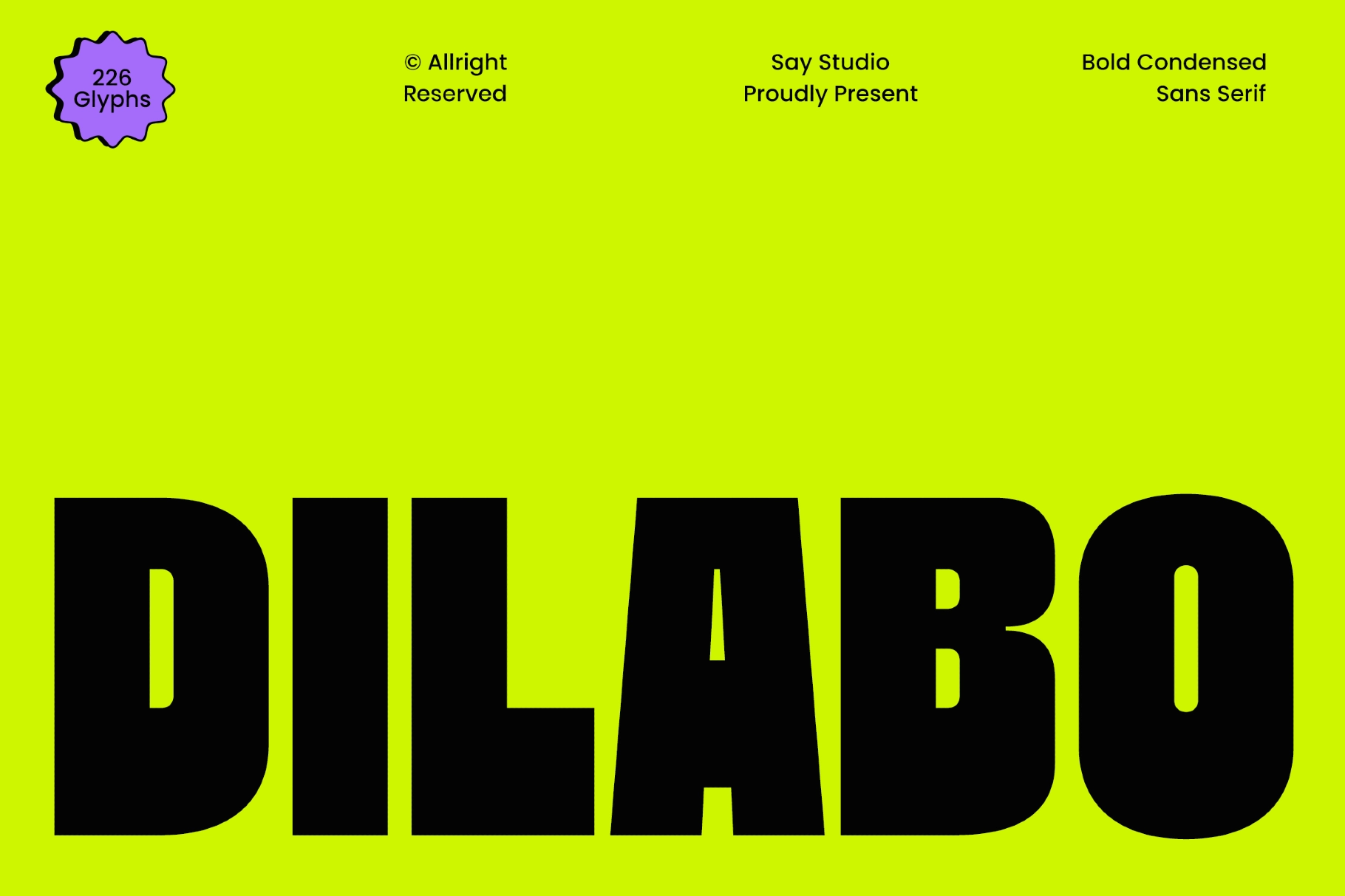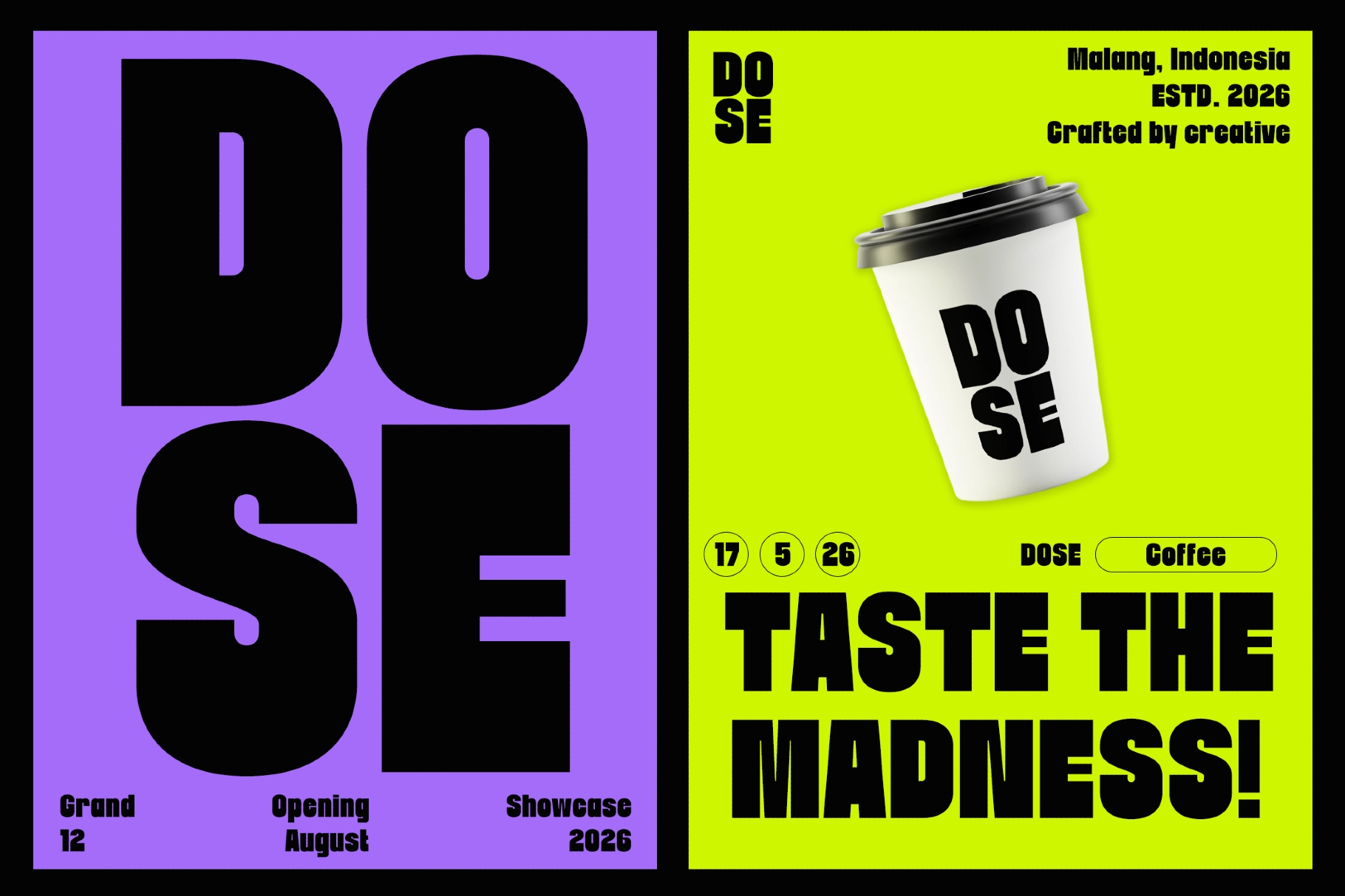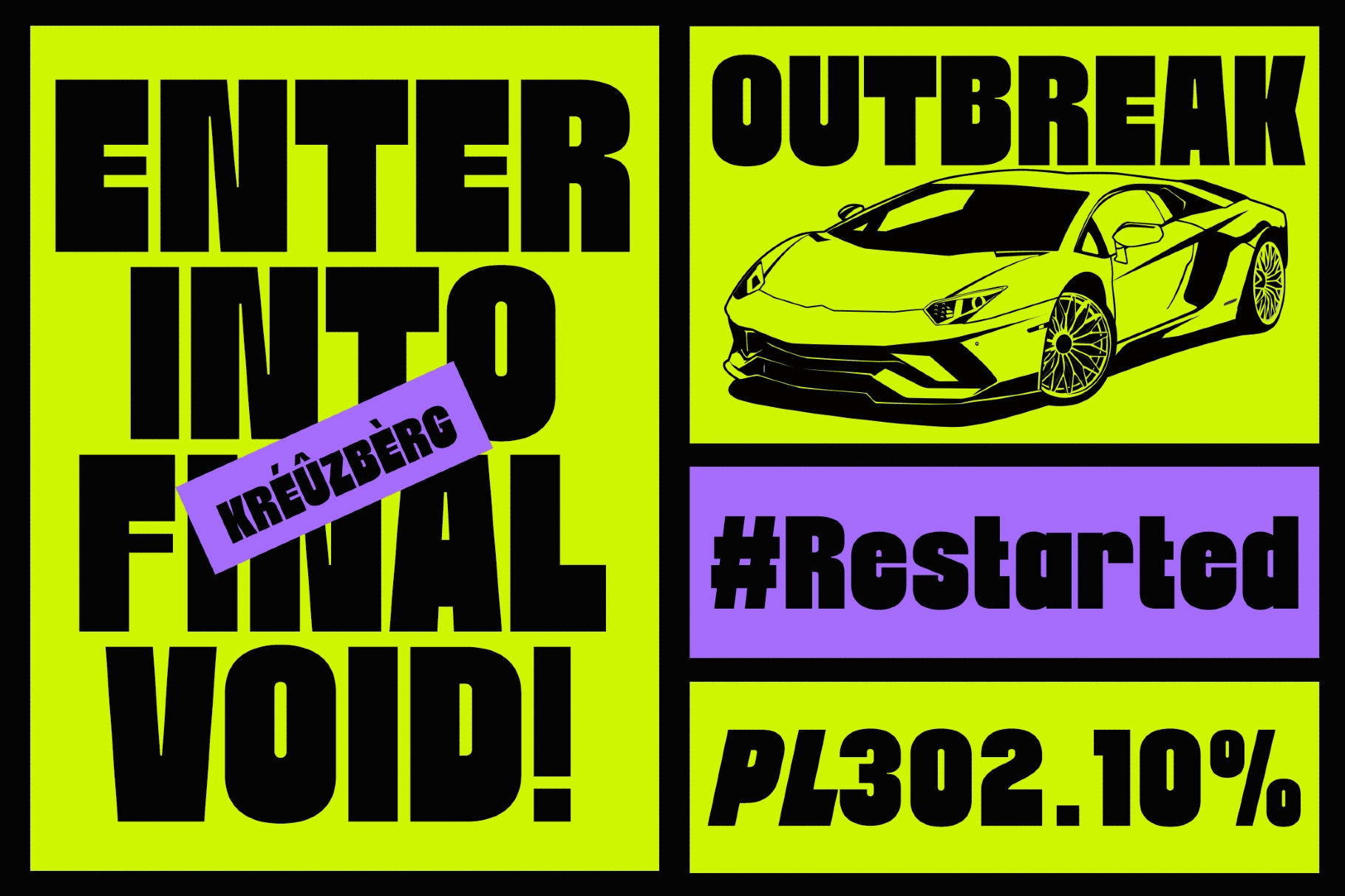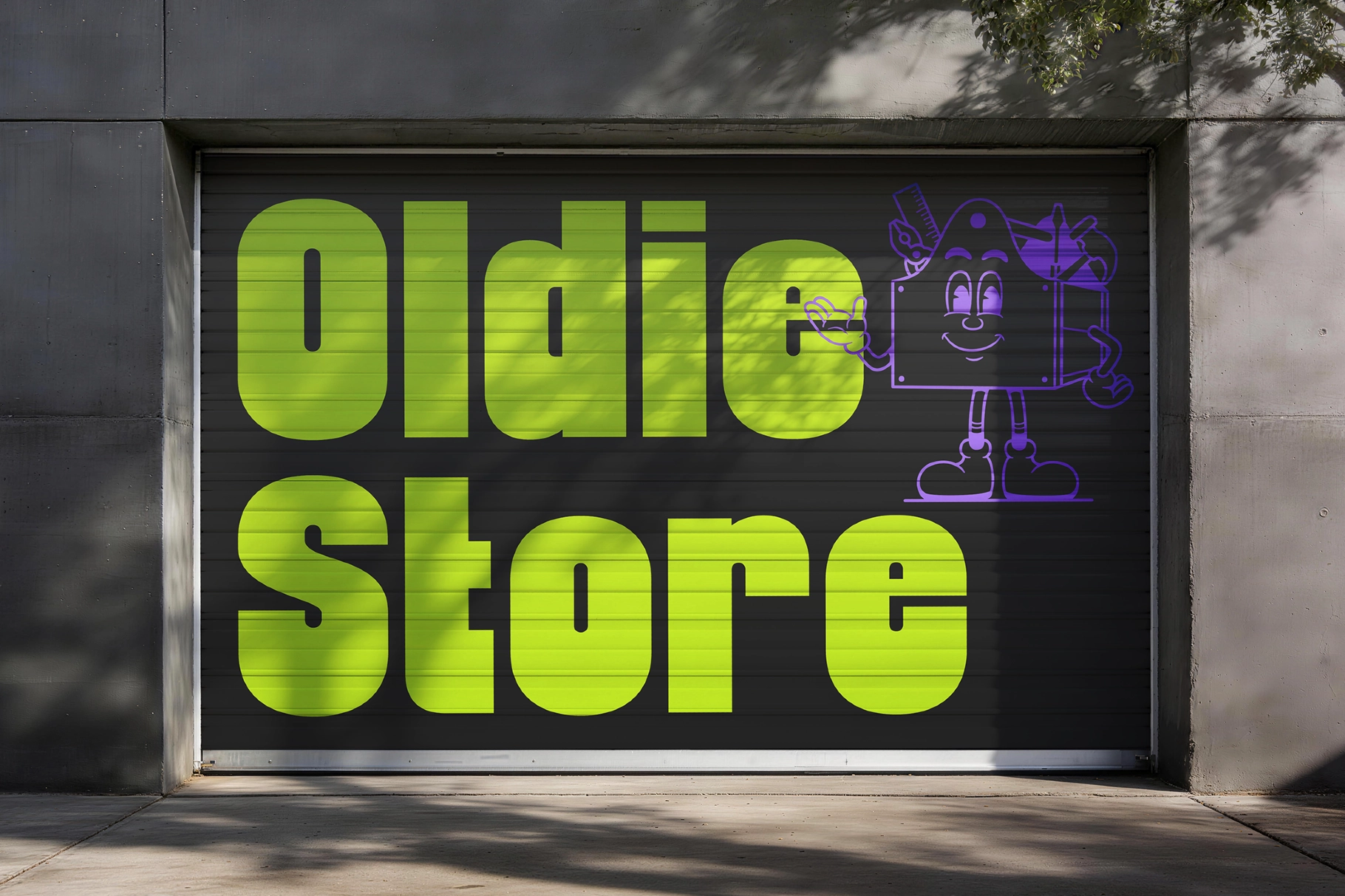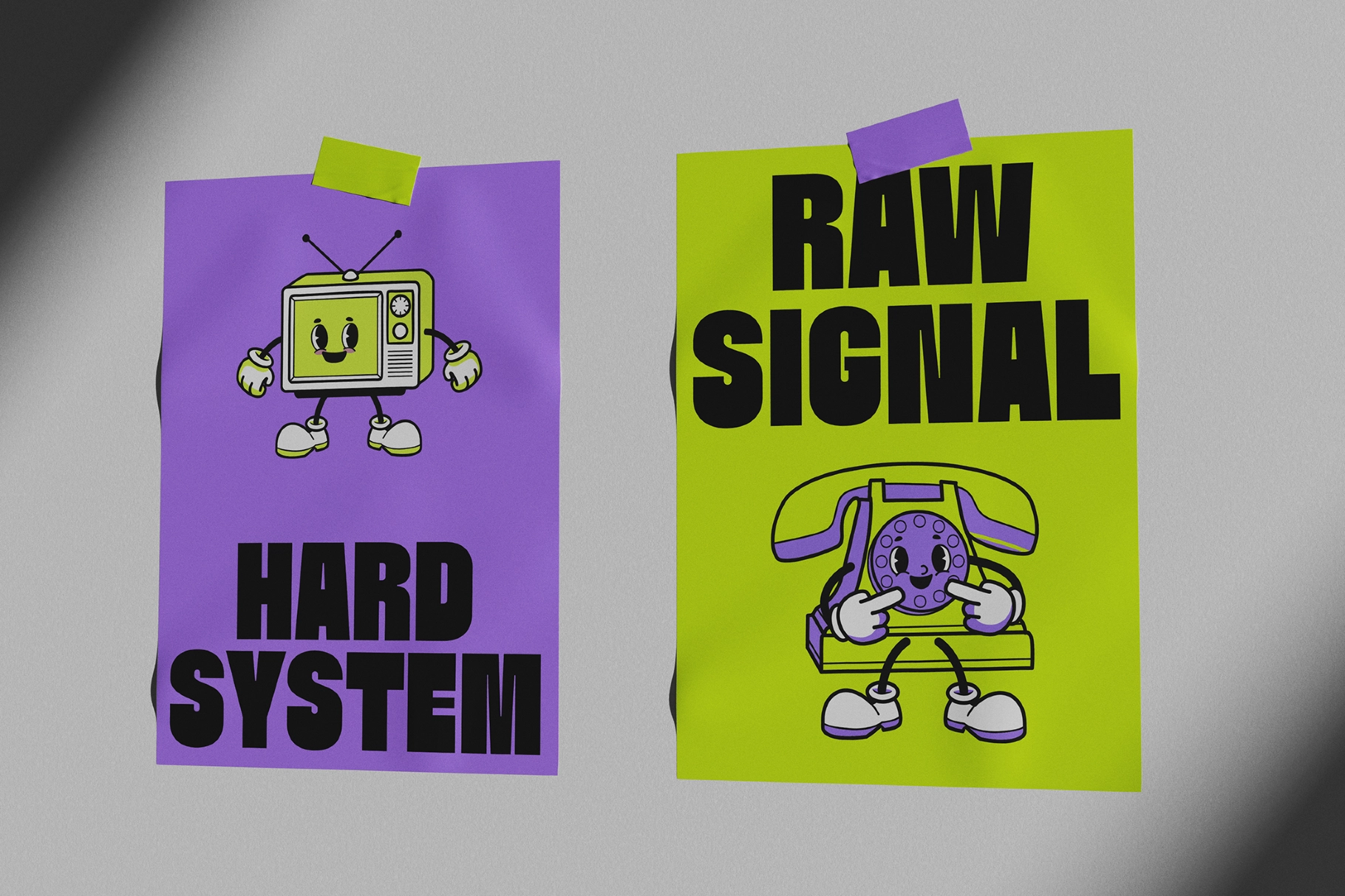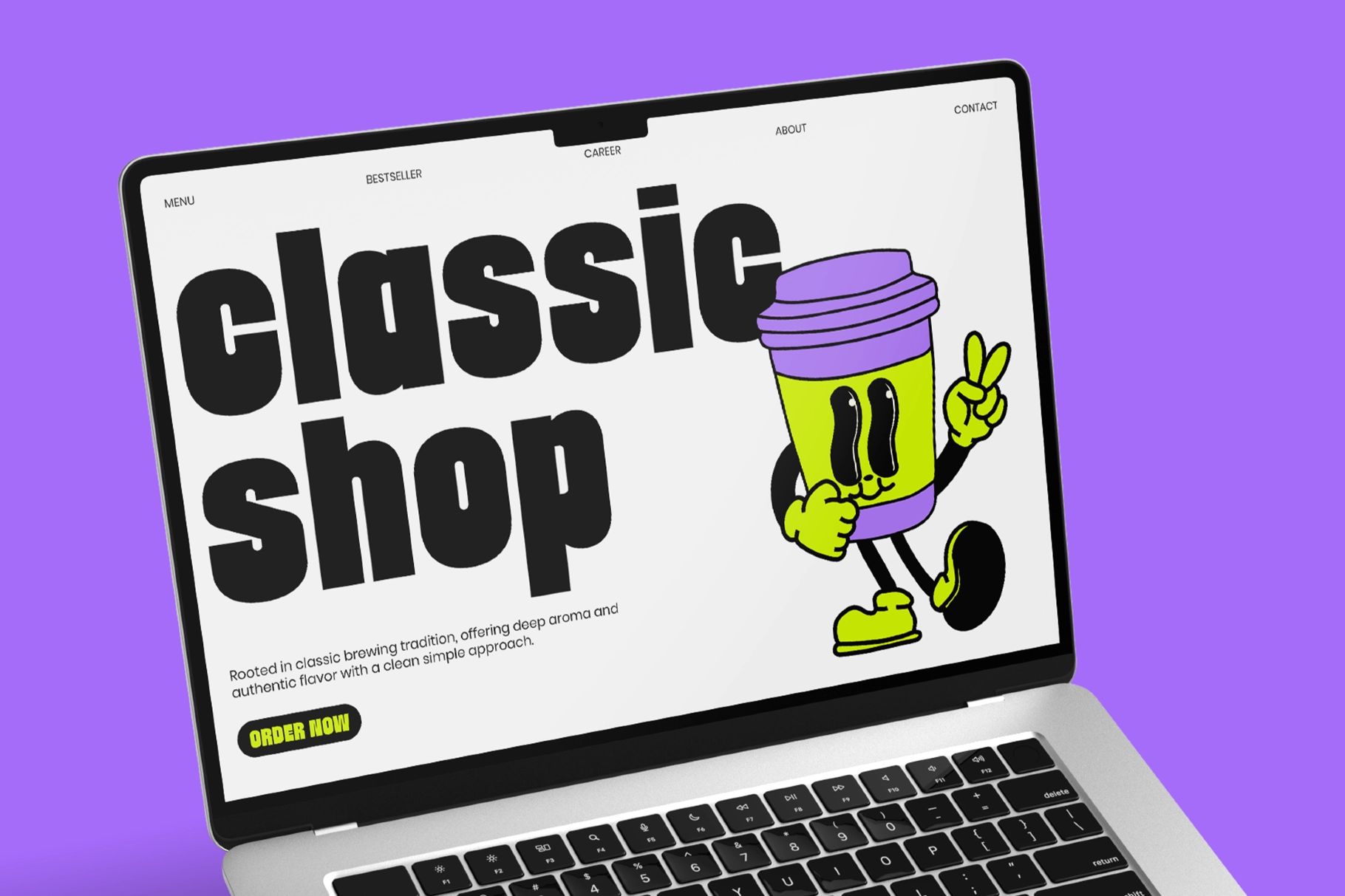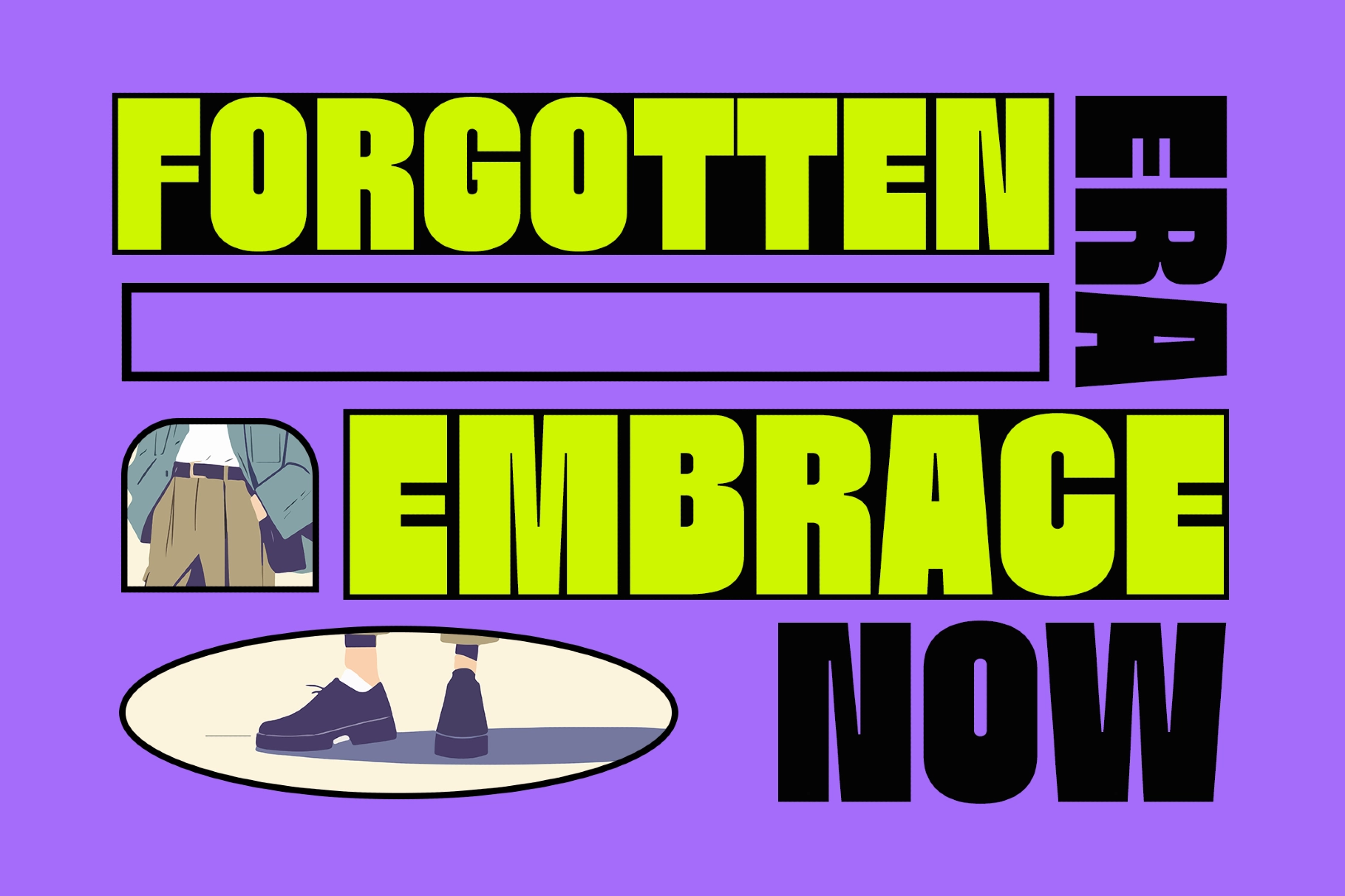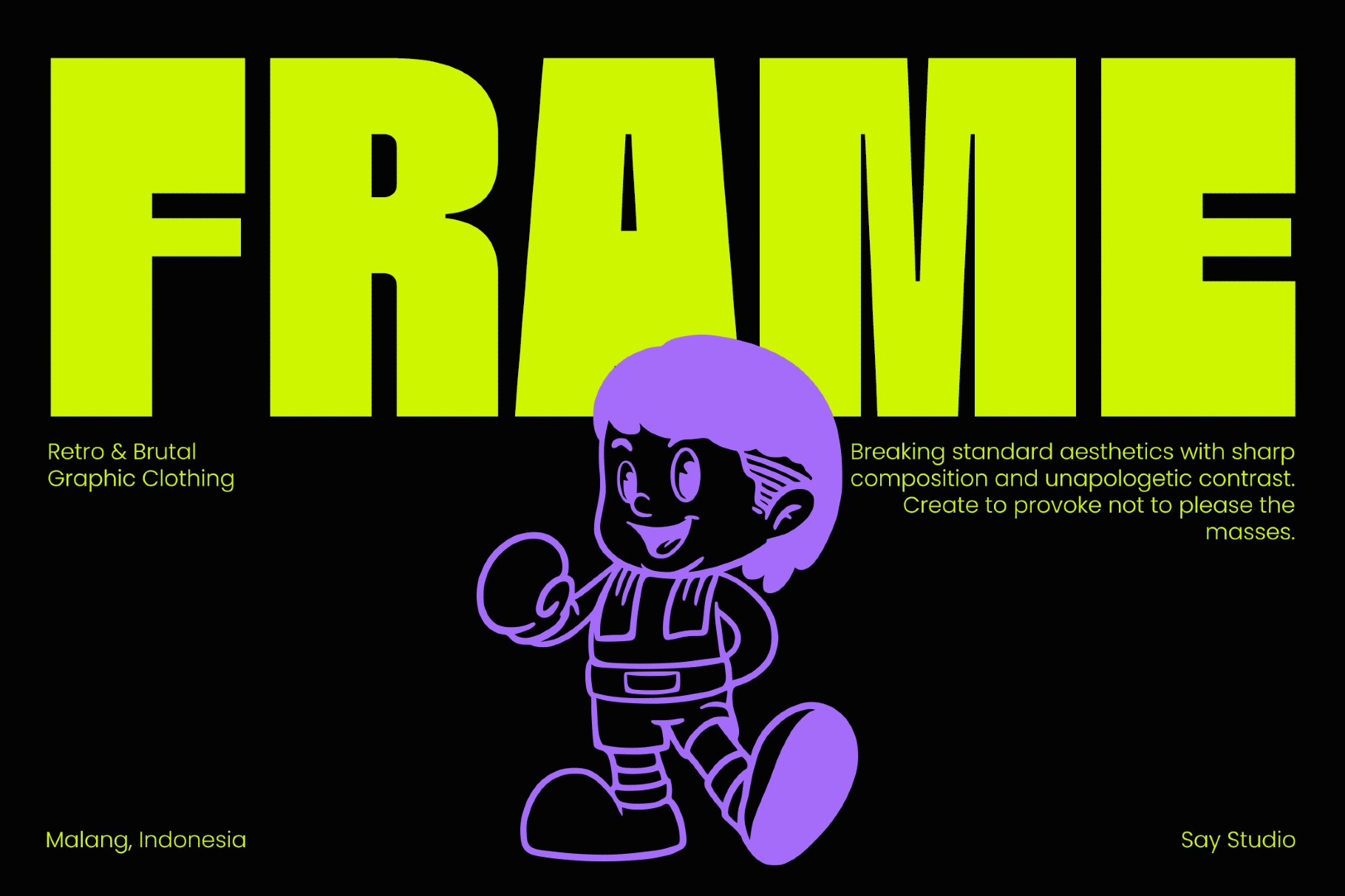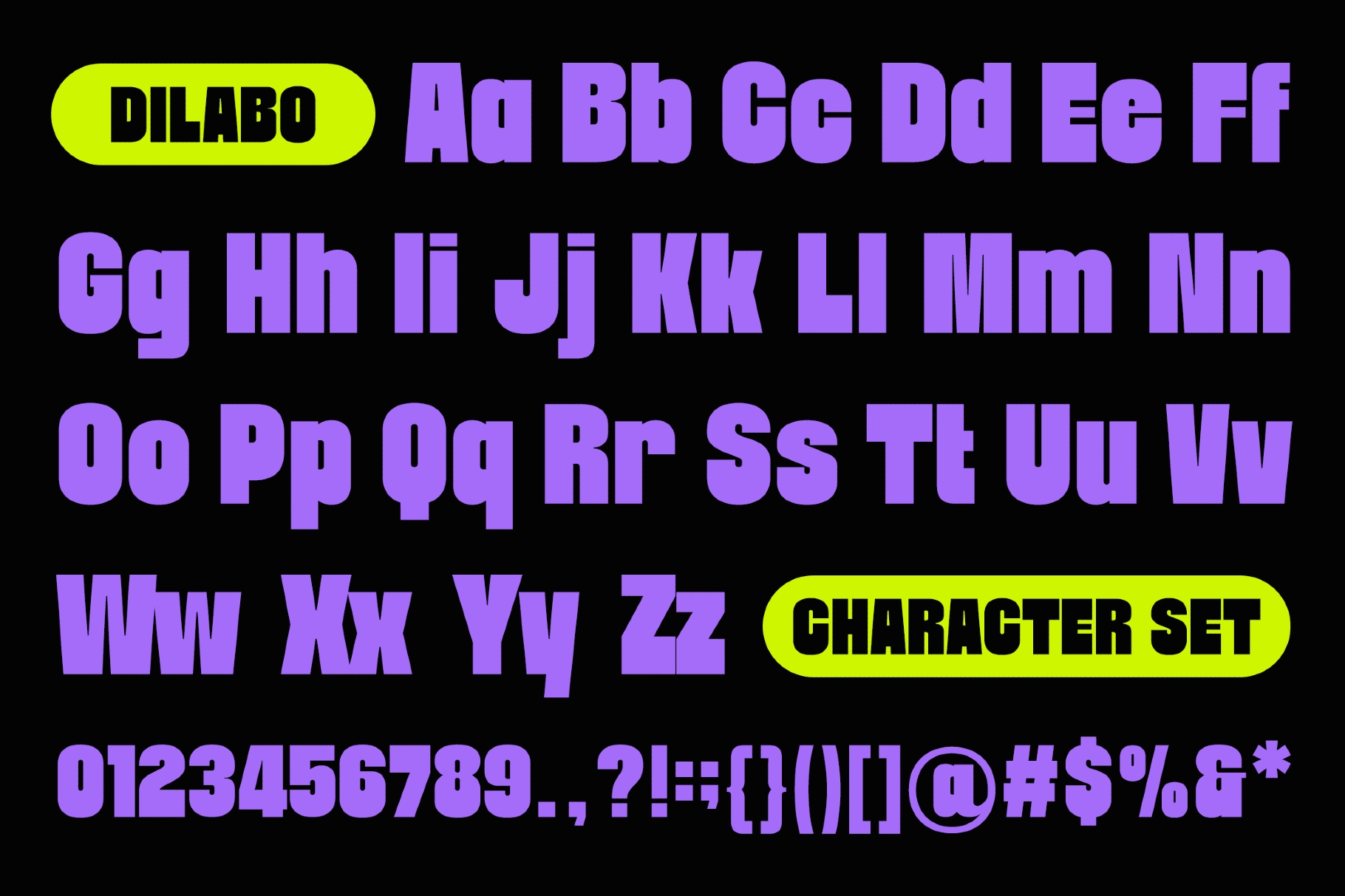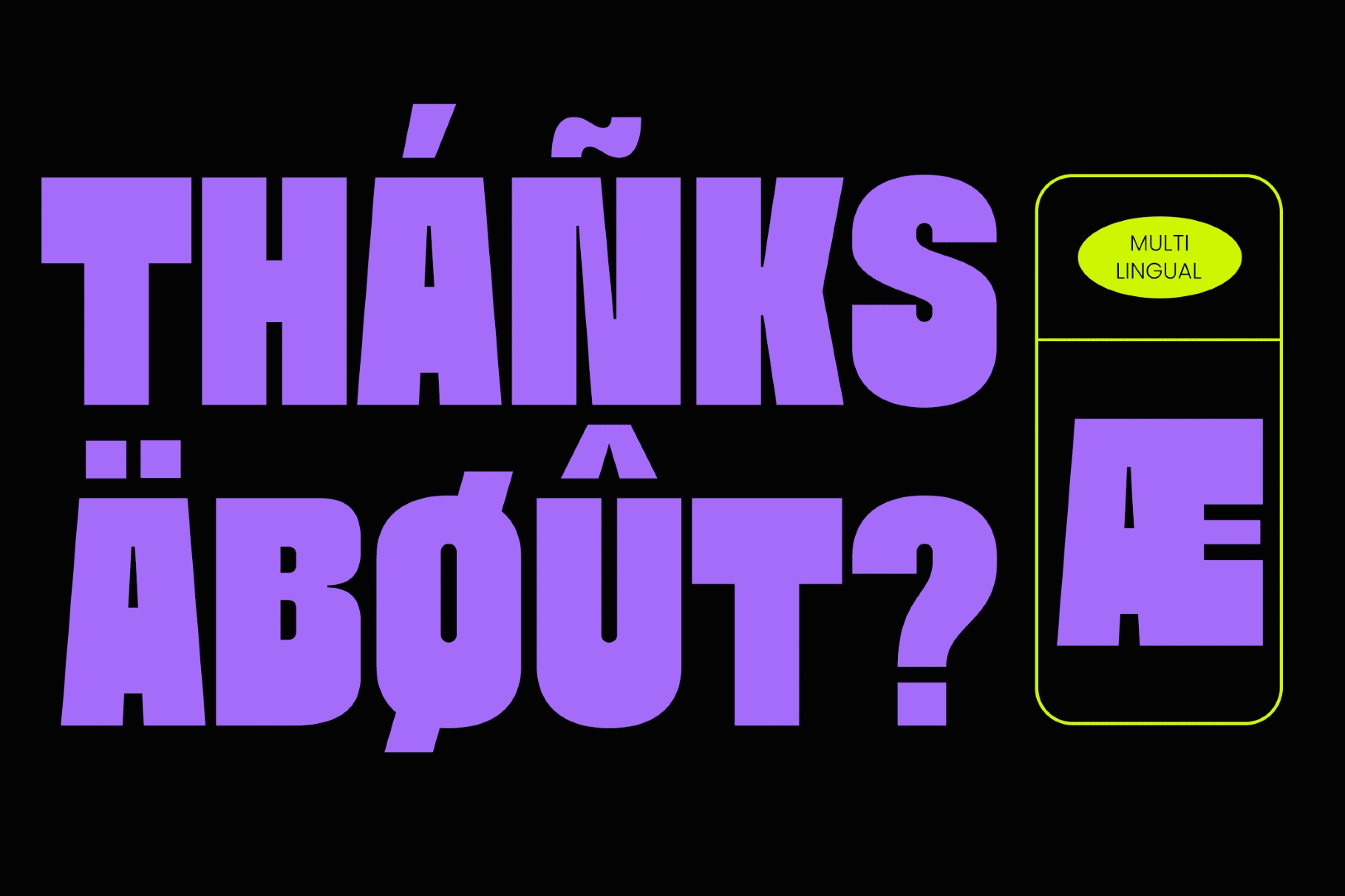
Dilabo - Bold Condensed Sans Font
This bold typeface is made for high-pressure headlines, sharp identity systems, and graphics that need to hit first. The condensed structure packs heavy letterforms into tight spaces, while the chunky sans serif shapes give each word a loud, urban rhythm without losing readability.
Dilabo works for logo design, sports branding, streetwear graphics, poster layouts, packaging, magazine headlines, YouTube thumbnails, social media posts, music artwork, event flyers, coffee branding, editorial covers, and advertising campaigns. Its tall proportions and solid weight are great for stacked typography, oversized text blocks, punchy callouts, and layouts where the type has to do the talking before the copy gets a vote.